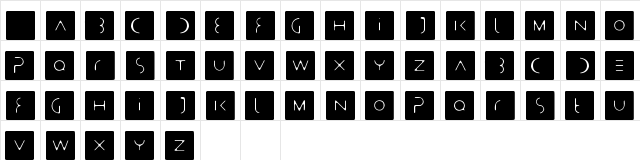
Stealthy Bastards Free Font
Stealthy Bastards Stealthy Bastards
Style: Stealthy Bastards
Design Context for Stealthy Bastards
Stealthy Bastards is a composed and adaptable typeface that performs quietly and consistently across a wide range of design contexts.